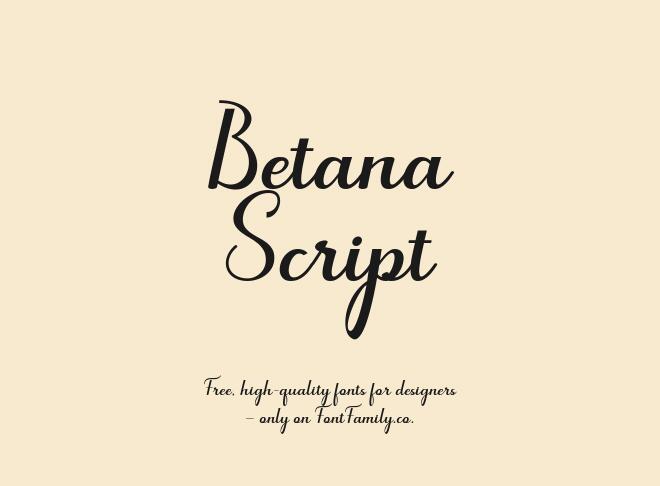
Betana Script Font
Betana Script Font is a beautifully crafted, elegant script font that exudes a sense of sophistication and style. It's a perfect choice for logos, invitations, wedding stationery, and more. This font's dynamic, flowing characters make it a standout in the realm of script fonts, and its refined, handwritten aesthetic adds a personal touch to your designs. Compared to other script fonts, Betana's unique charm and character set it apart. It's a versatile font that can adapt to both formal and casual design contexts. With Betana Script Font, your design will not only look stunning but also convey a message with clarity and elegance. This font is a must-have for any designer's toolkit.